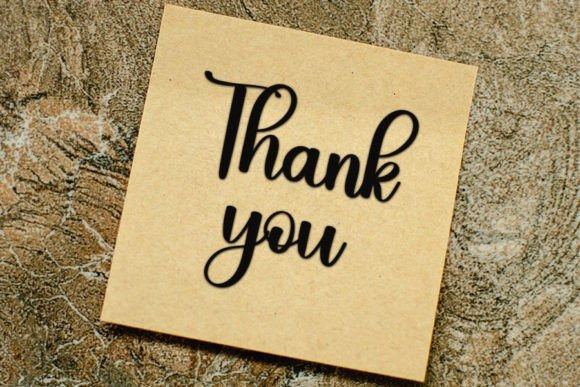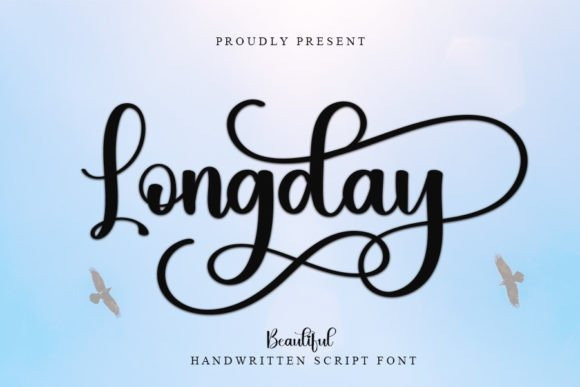
Longday Font
Longday Font is a beautiful handwritten font, perfect for your creative purposes. You can use it for making logos, business cards, covers, heading, quotes, books, social media posts, fashion, magazines, and more.